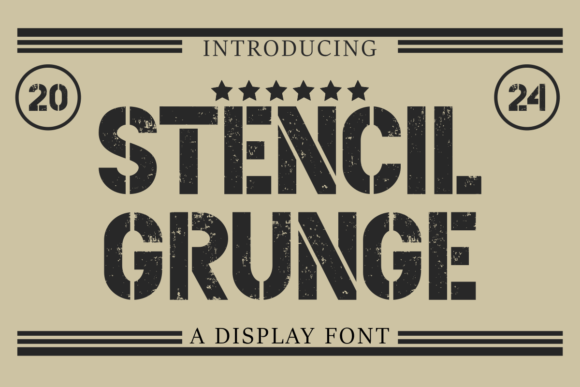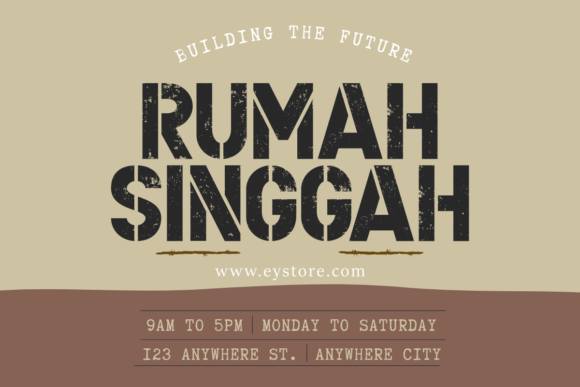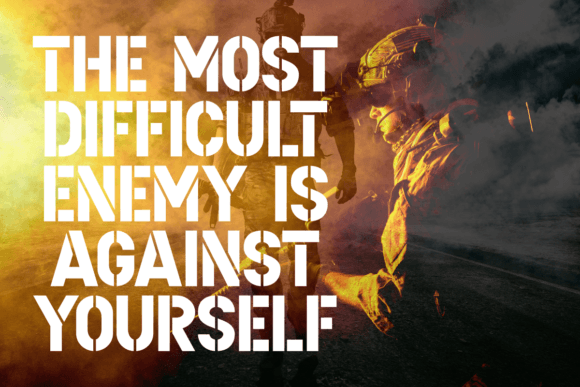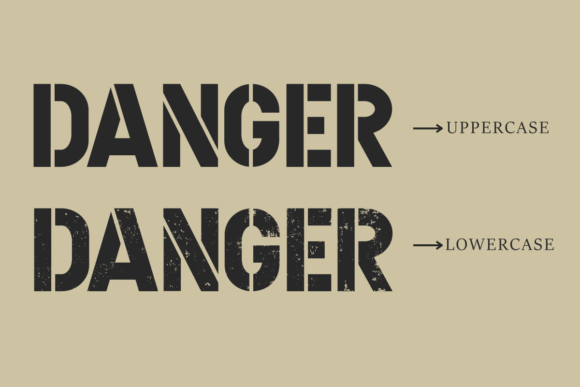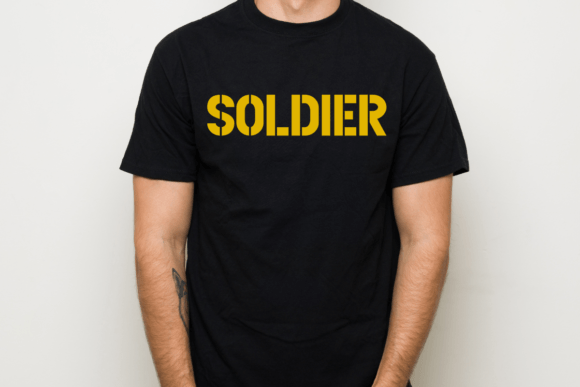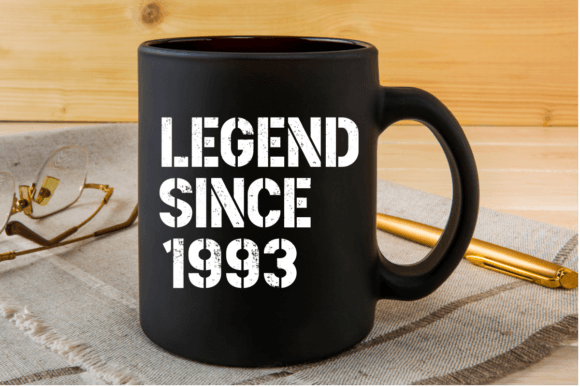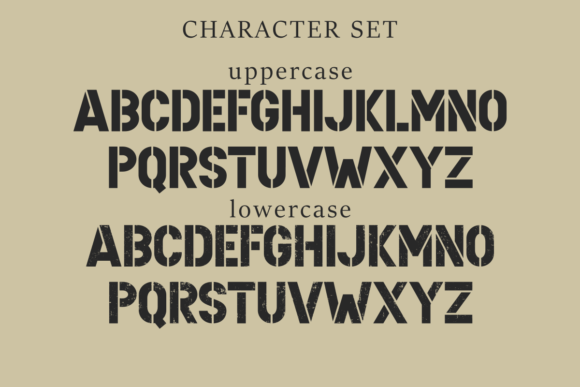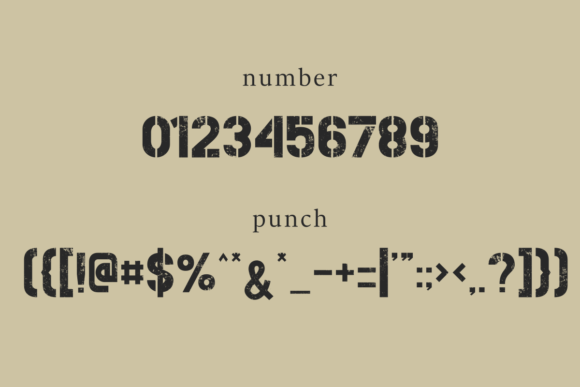
Stencil Gruge Font
Grunge Stencil is a stencil style that has a vintage and unique texture. The wide characters and bold serifs make this font ideal for eye-catching designs. You can use it for headlines, t-shirt typography, banners, product labels, and much more.